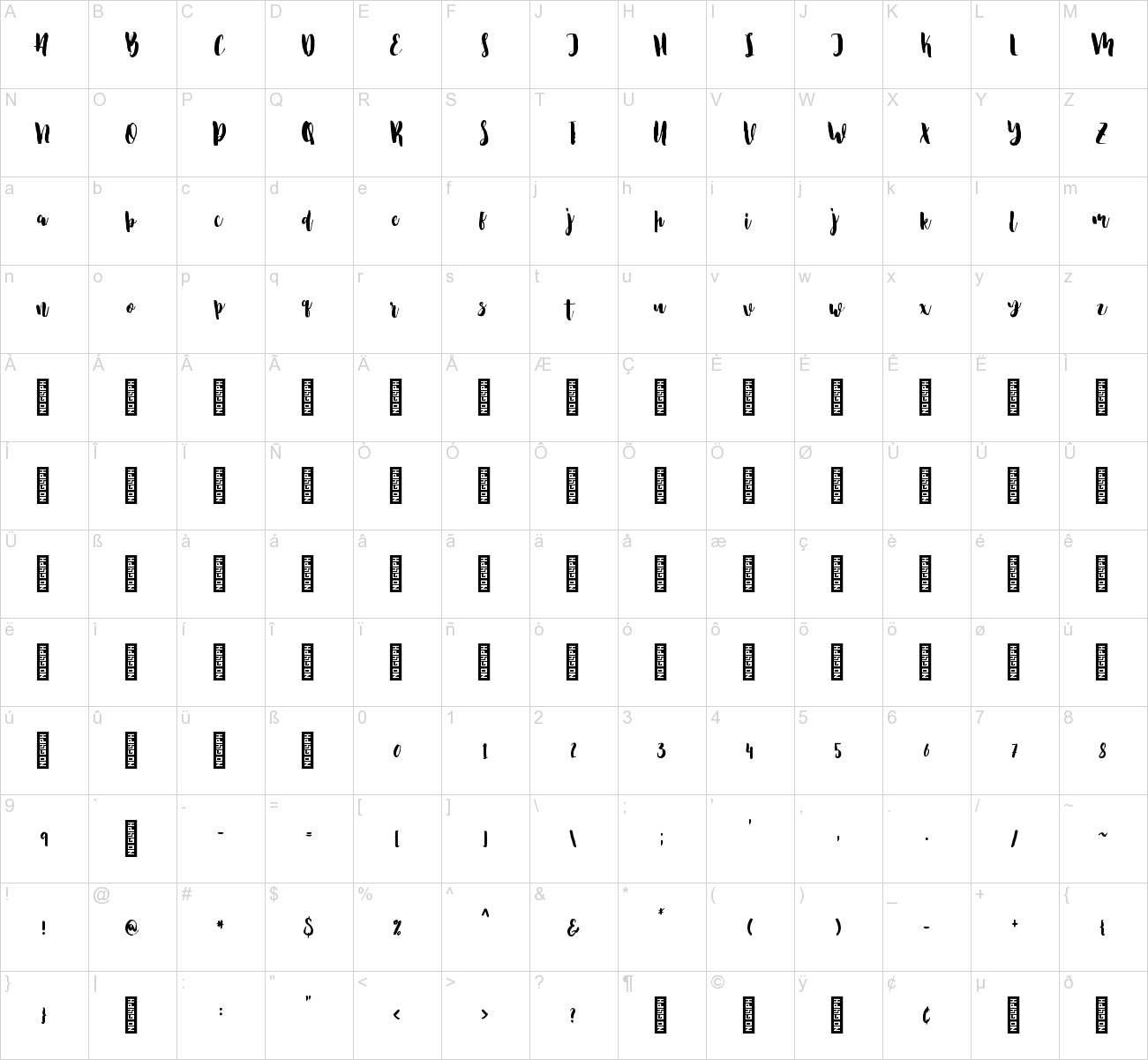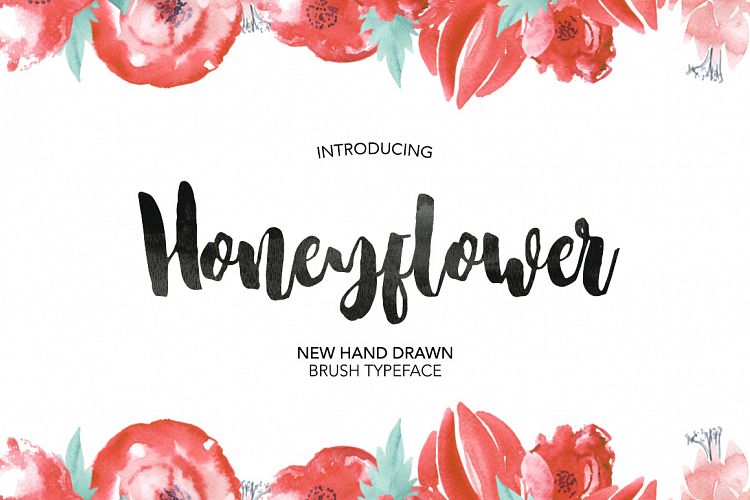
Honeyflower Script Font
I represent to your attention an incredible 100% handwritten font. Very suitable for the design of logos, creation of invitations, greeting card and more.
| Designer Name: | MediaLab |
| Classification: | Brush Fonts, Handwritten Fonts, Script Fonts |